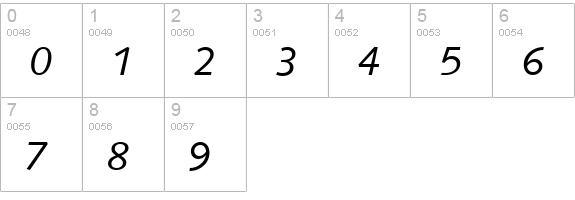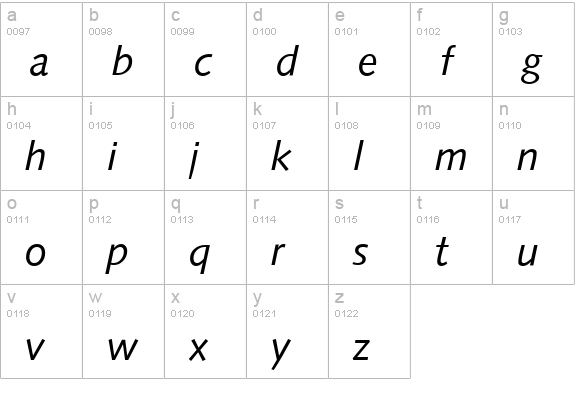
S841-Sans-Italic Font Details
S841-Sans-Italic is a distinctive, italic variant in the S841 typeface family \xE2\x80\x94 well suited to design and typography projects.
S841-Sans-Italic is a modern and stylish font that exudes sophistication and elegance. Its sleek italic design adds a touch of flair to any project, making it perfect for branding, advertising, and creative designs. The slanted angles and clean lines of this font create a dynamic and eye-catching look that is sure to impress. Best of all, S841-Sans-Italic is available for free download at FontsMarket.com. This means you can easily access this premium font without any cost, making it a valuable addition to your font collection. Whether you're a designer, marketer, or creative professional, S841-Sans-Italic offers a versatile and high-quality font option that will elevate your projects to the next level. Download it today and see the impact it can make on your designs!